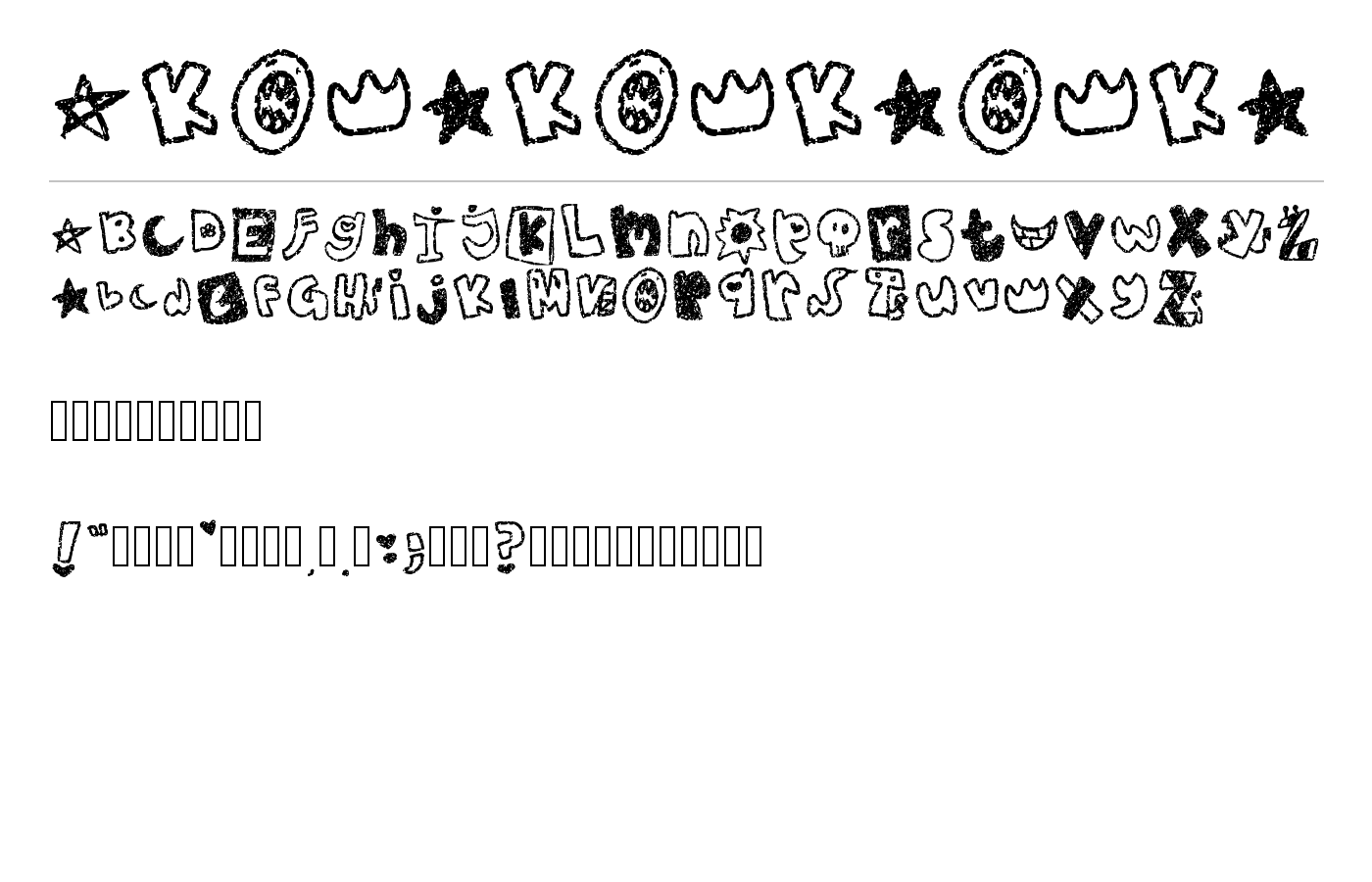
Akowakowkaowka is a playful and whimsical handwritten font featuring irregular, bold letterforms with a rough textured effect that gives it a casual, fun vibe. Its quirky shapes and decorative details make it ideal for creative projects, children’s designs, or any context that seeks a lively and informal appearance. This font works best for headlines, posters, and branding where a unique and energetic personality is desired.
Akowakowkaowka Font
About Akowakowkaowka Font